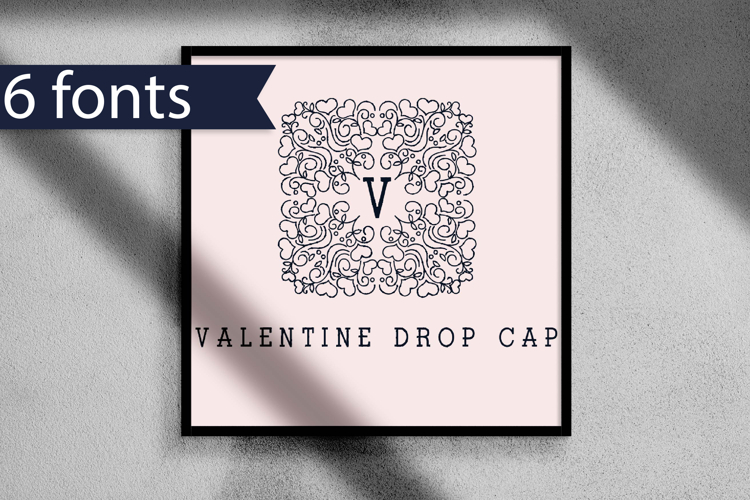
ZP Valentine Drop Cap Font Family
This hand-crafted font is pretty, intricate, monogram font features a heart-filled, illustrated frame around each uppercase letter. There are 6 variations included.